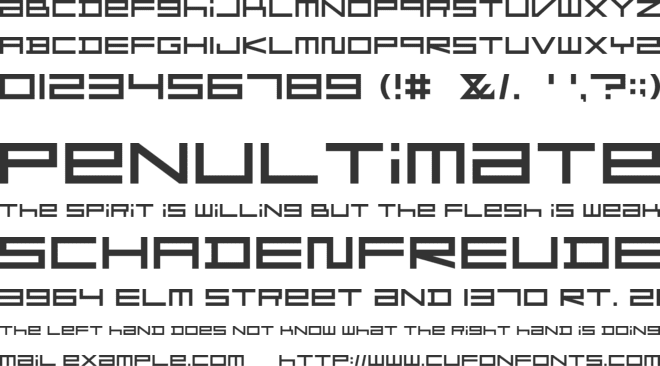
F-Zero GX Menu Font
Tony Thai
This font was inspired by the font used to display the course venue in the racing game F-Zero GX.
Includes the Venue Font and the Menu Font and several variations.
Update: Made slight adjustments to the V letterforms